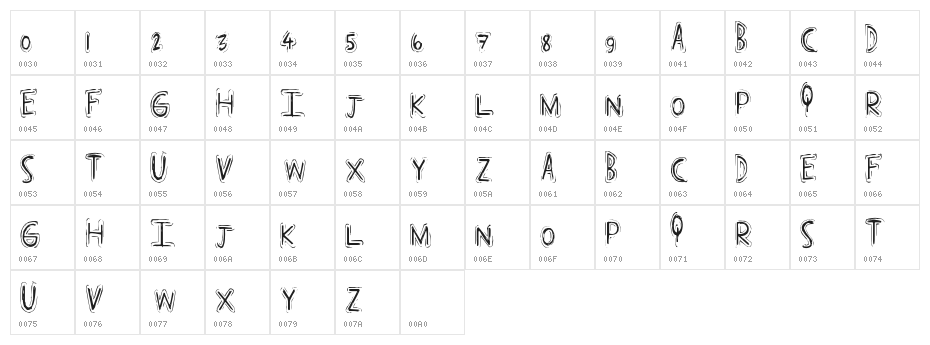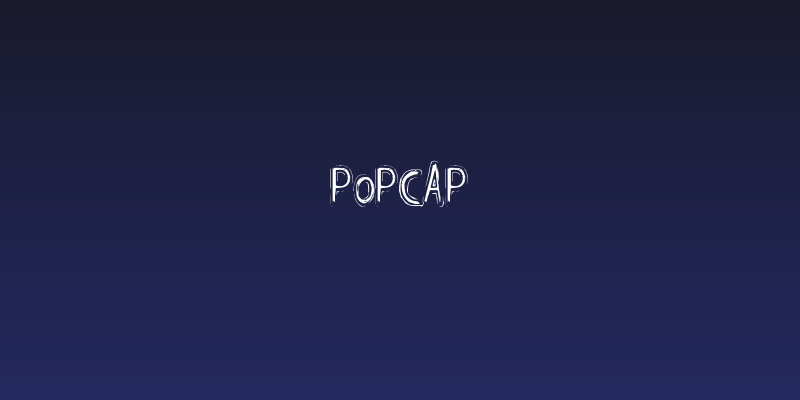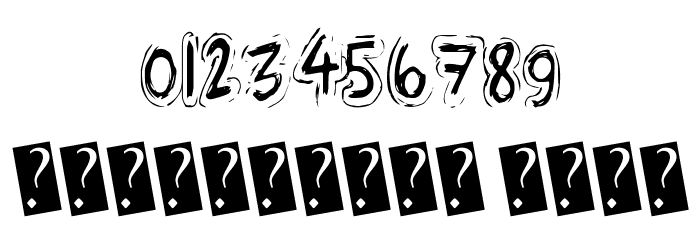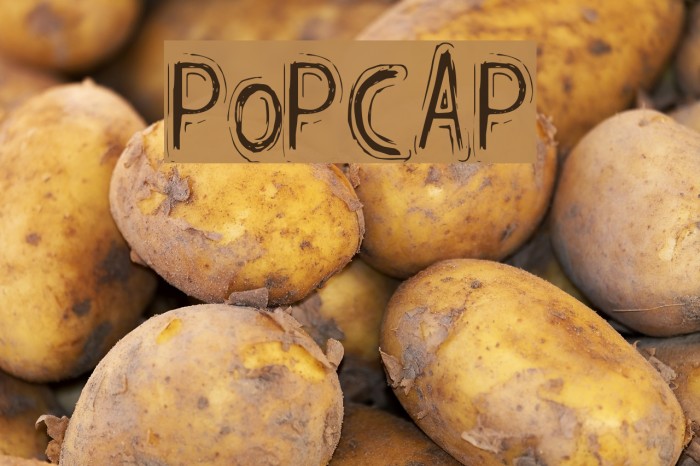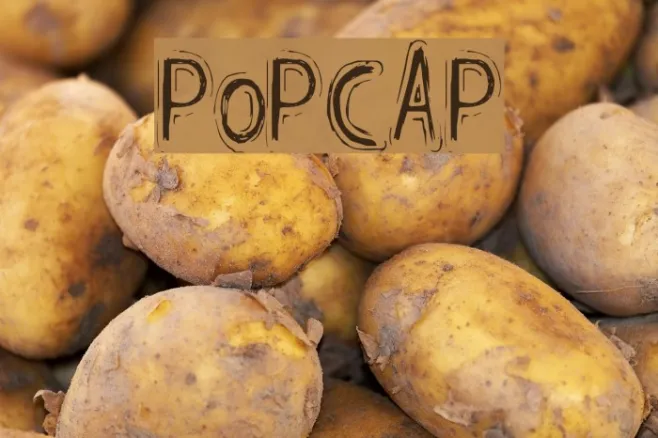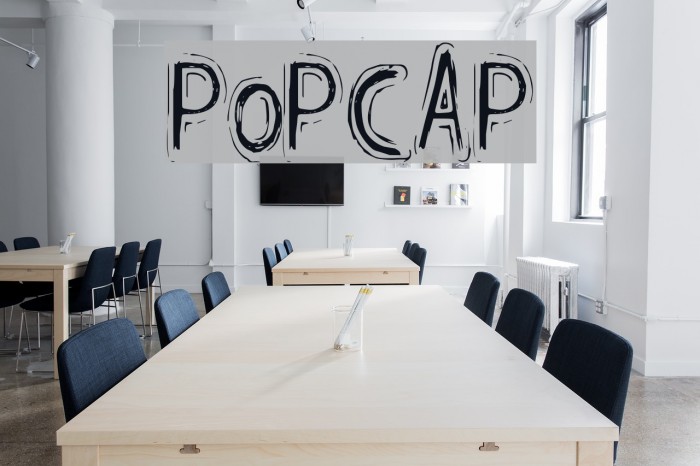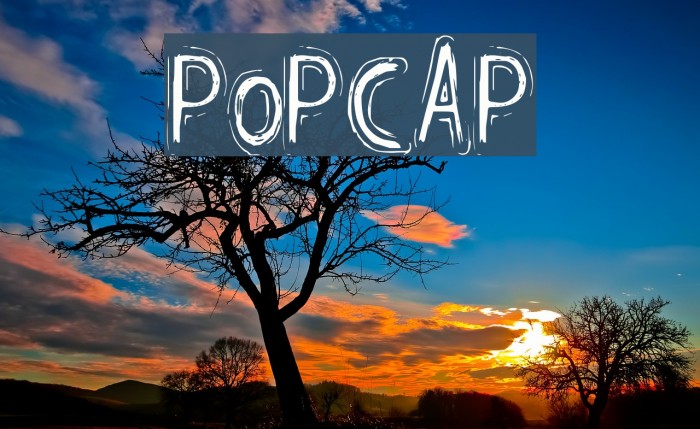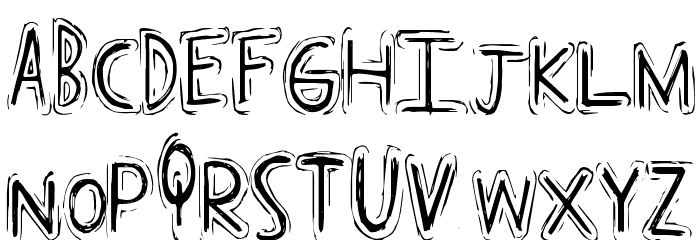
PopCap Font
PopCap Description
This font features a playful and dynamic style, characterized by its bold, hand-drawn appearance. Each letter is outlined with a rough, sketch-like texture, giving it a lively and energetic feel. The uppercase and lowercase letters maintain a consistent style, with slightly exaggerated curves and angles that add to its whimsical nature. The numbers and special characters follow the same design, ensuring a cohesive look across all elements. This font's unique style makes it stand out, perfect for projects that require a touch of creativity and fun.
| Overall Style | Playful, Artistic |
| Proposed Projects | Ideal for children's book covers, playful branding, creative posters, and artistic invitations. |